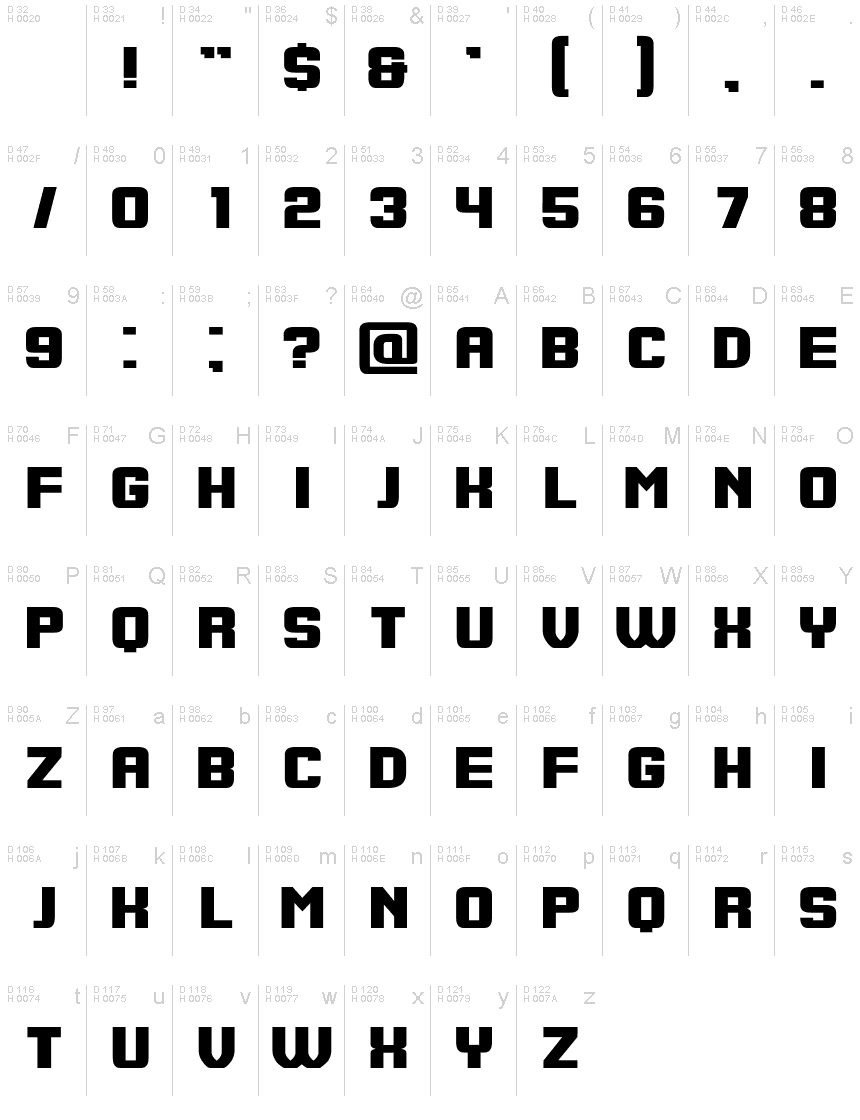
Johana Regular
Introducing Johana, a bold, wide sans serif font designed by Vladimir Nikolic. Perfect for eye-catching titles and headings, Johana is a great choice for projects such as advertising campaigns and web design.